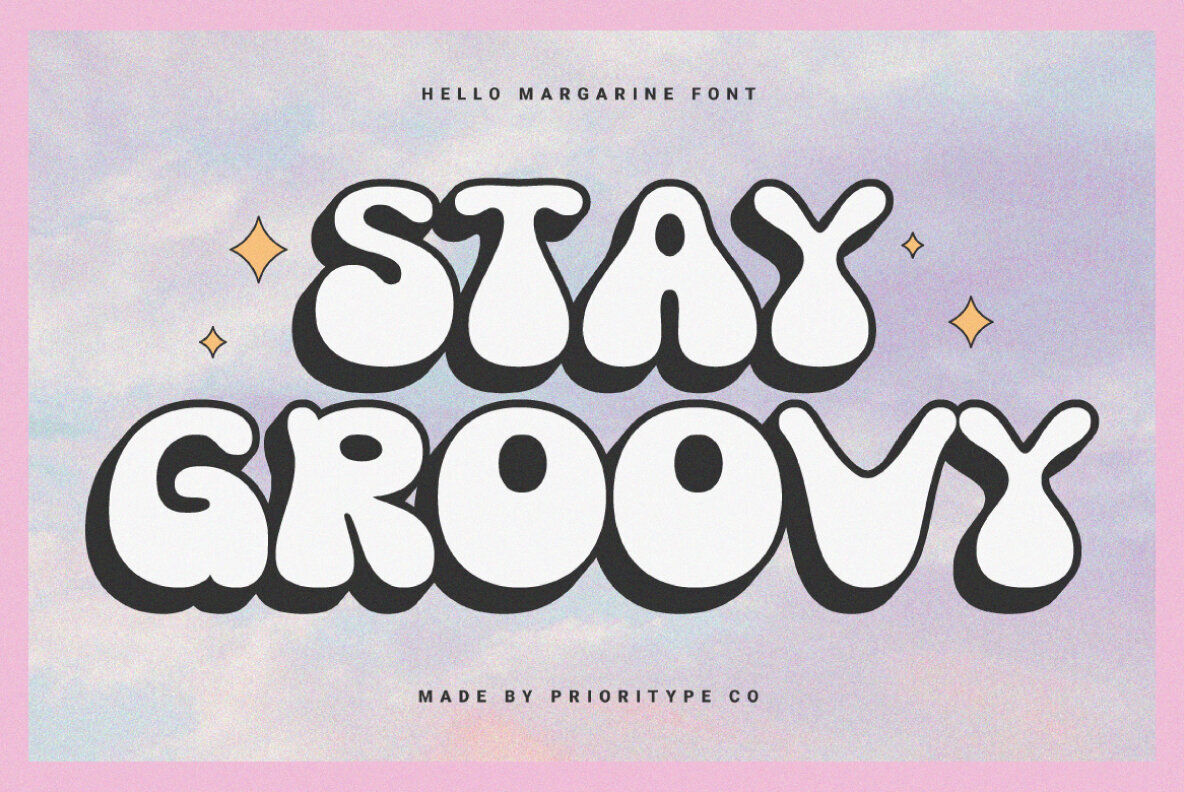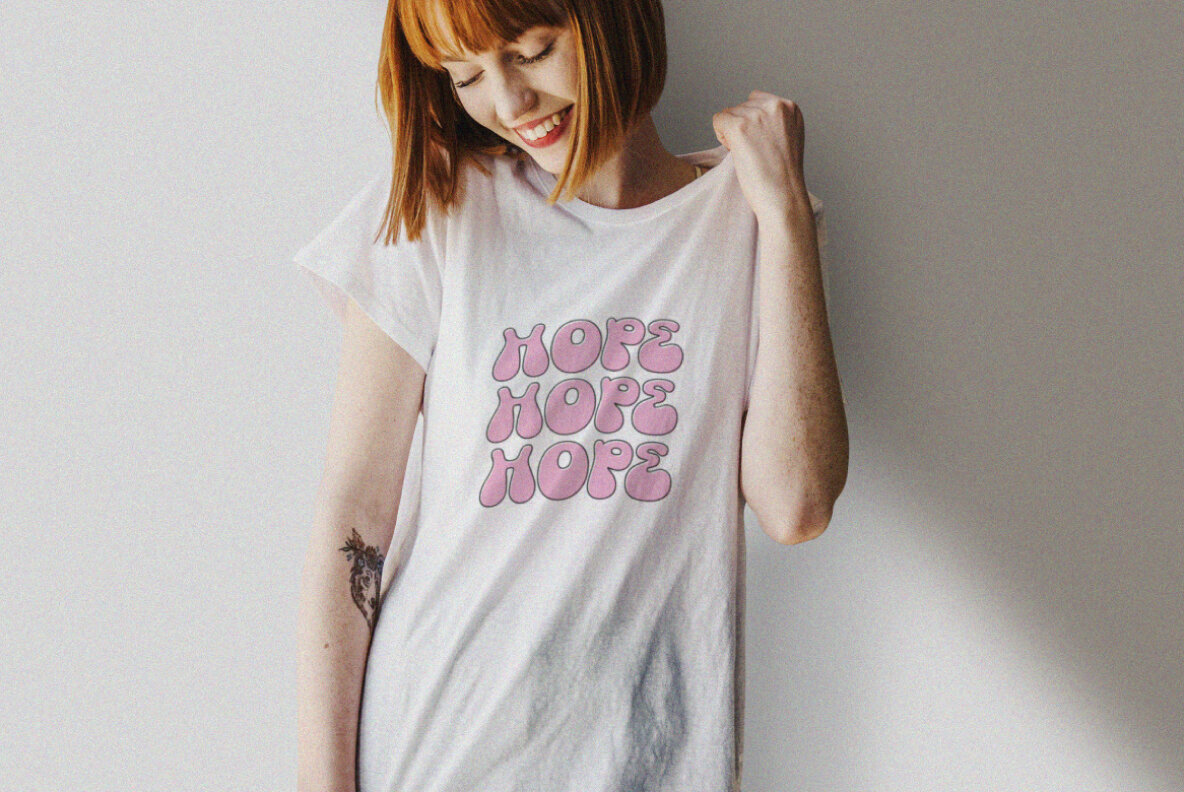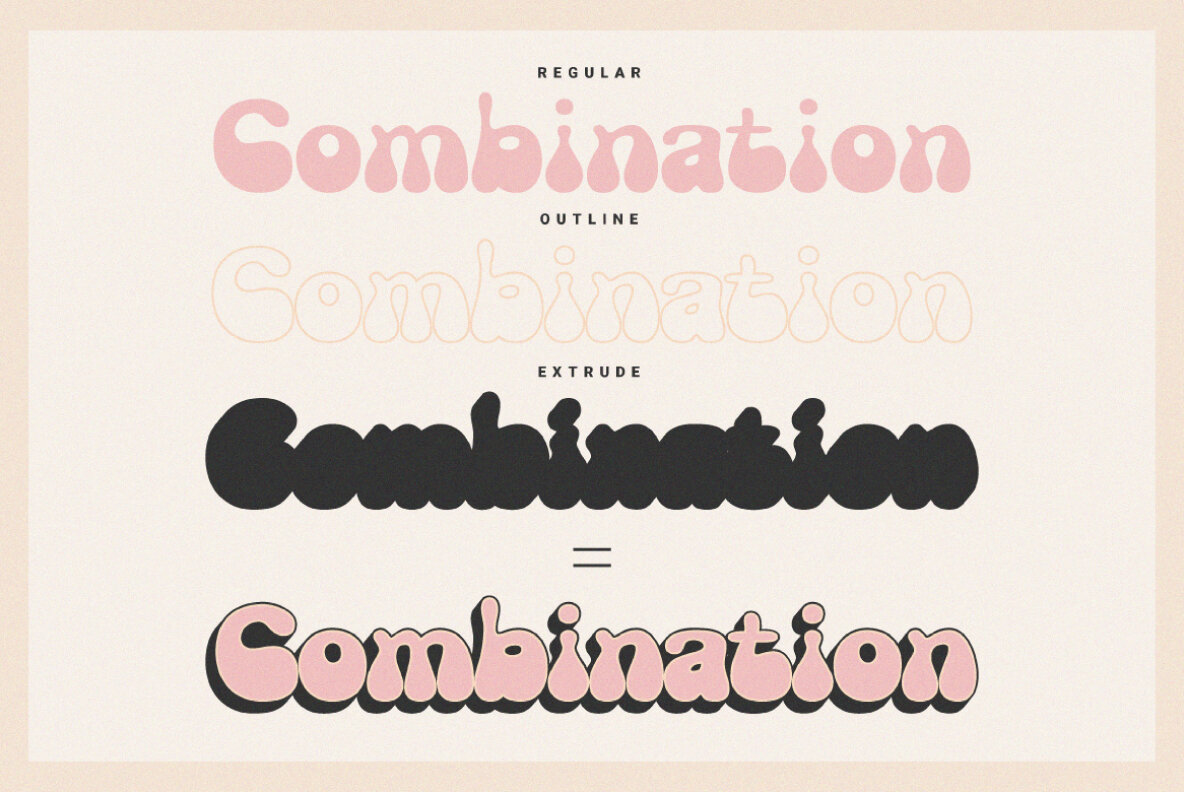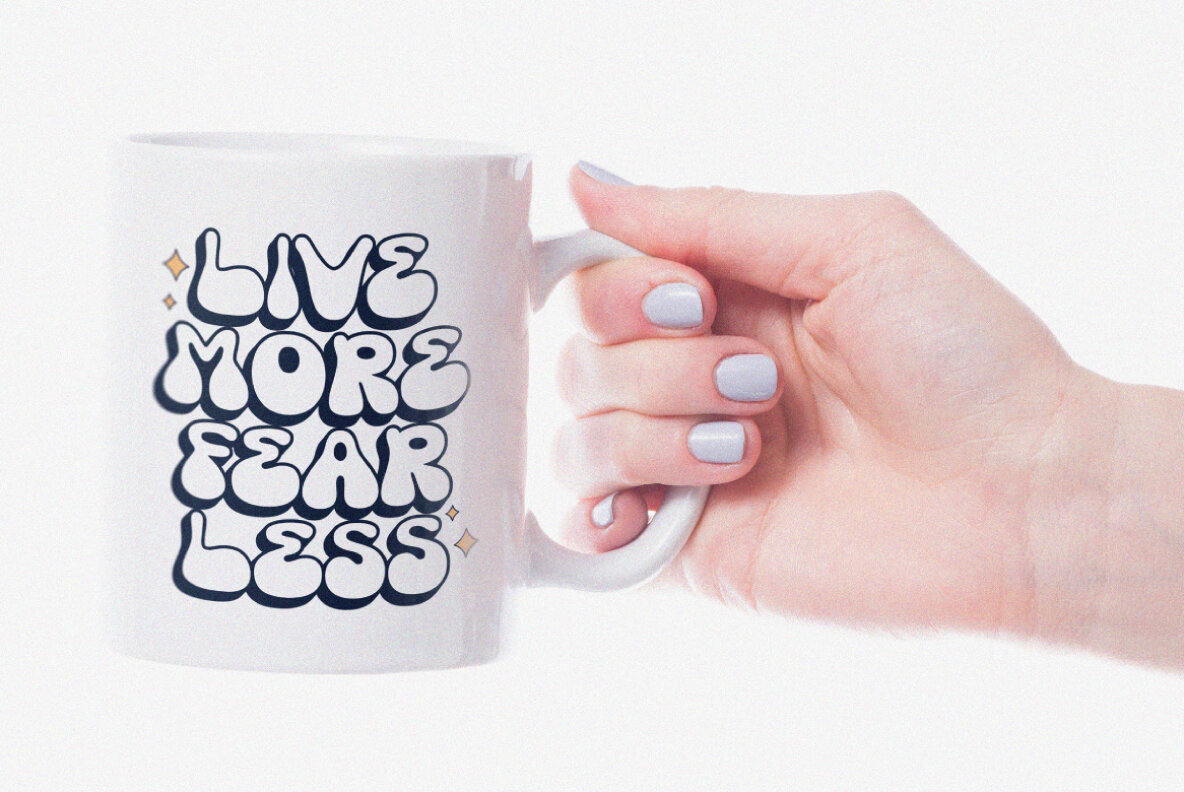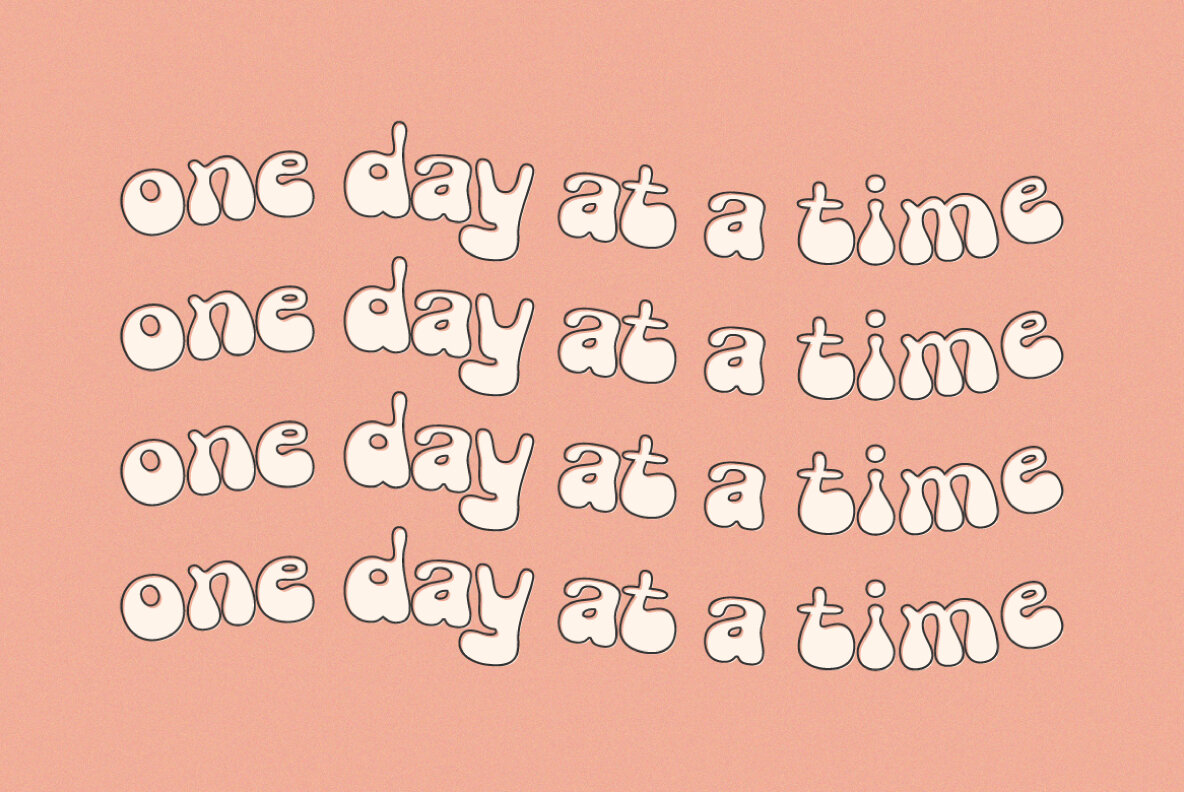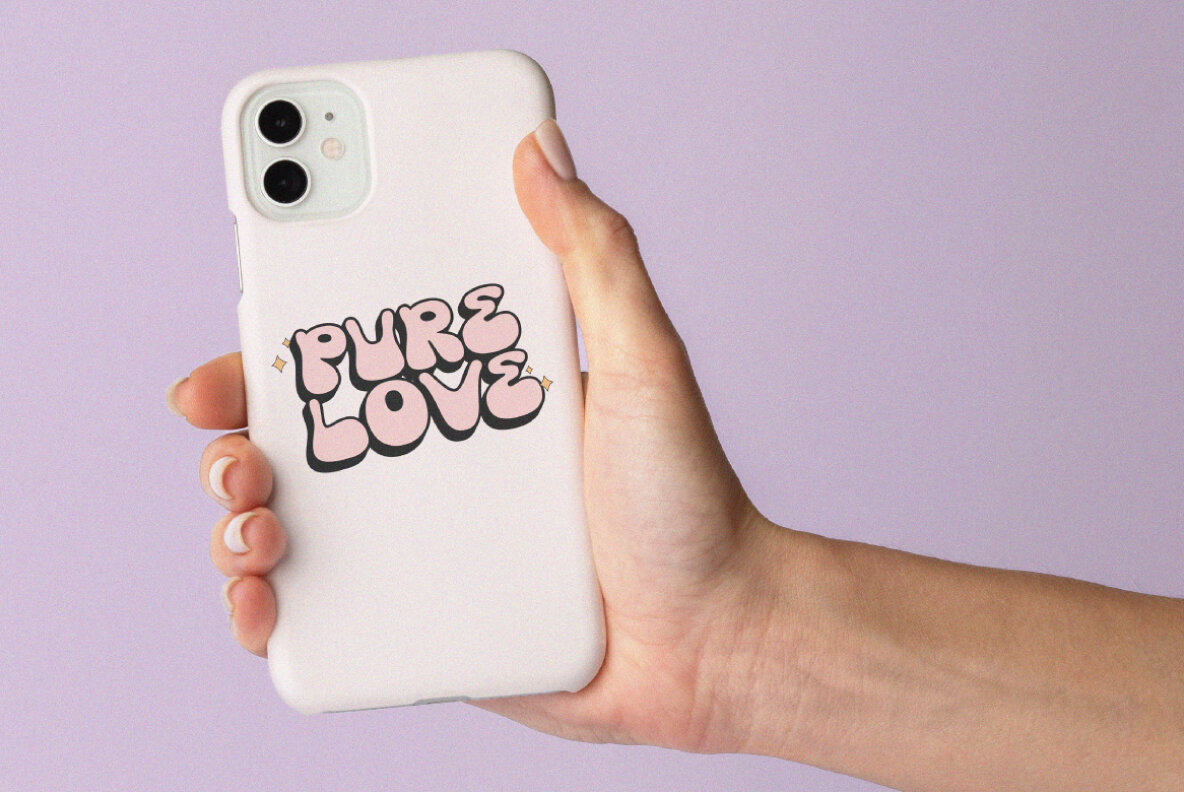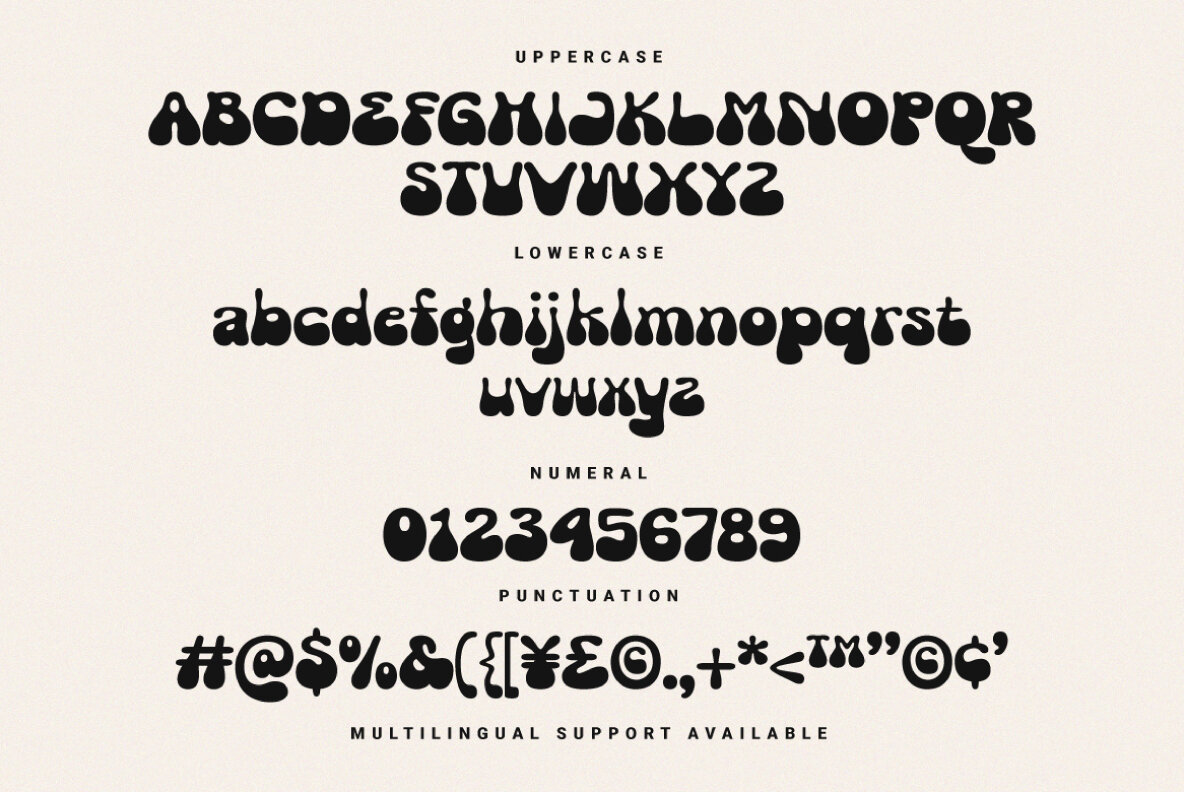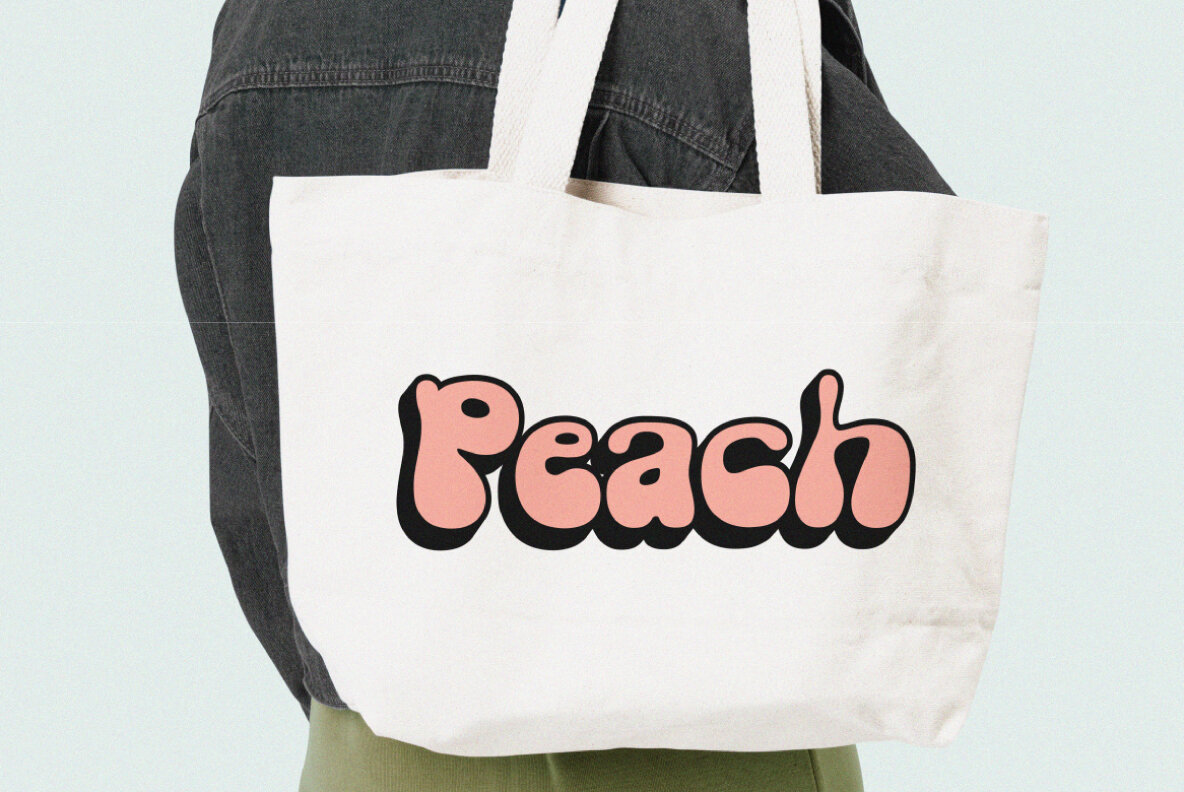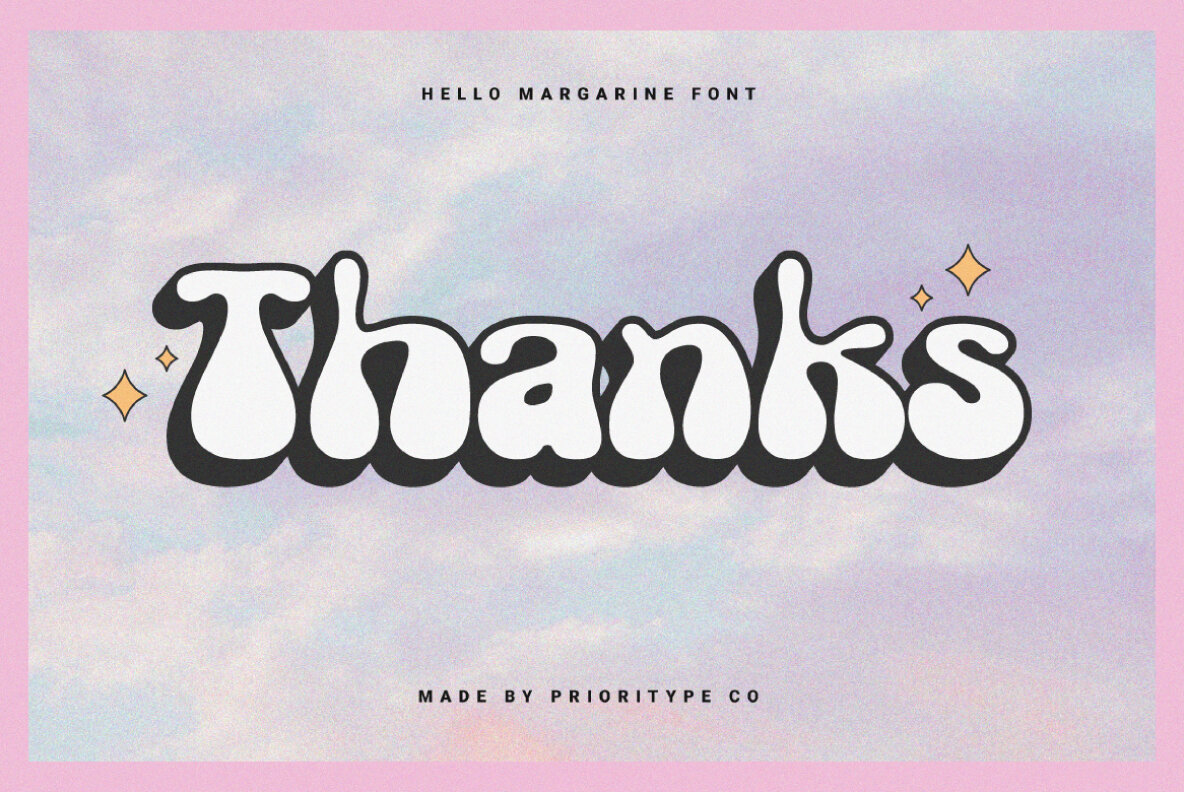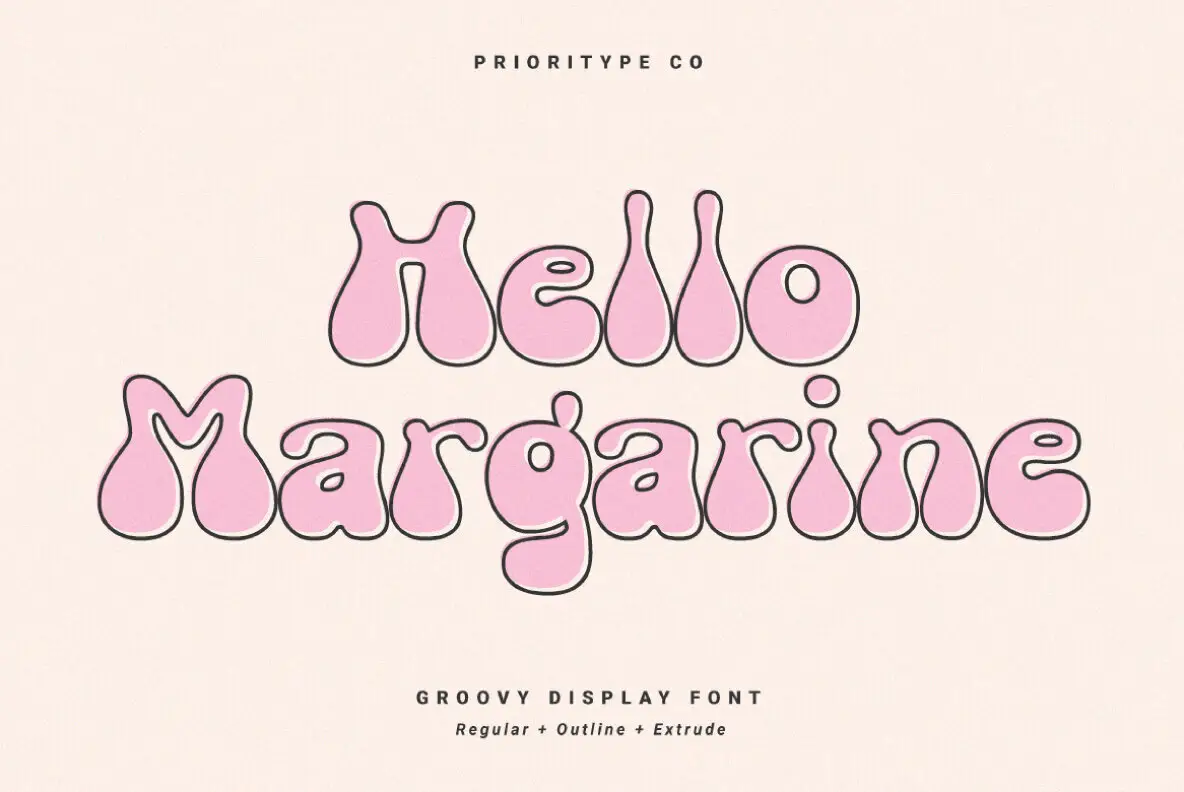
Hello Margarine Font
Hello Margarine is a groovy, hand-drawn typeface that brings a bold and upbeat vibe to your projects. This lively font comes in three versatile styles: Regular, Outline, and Extrude. Used separately or together, these styles provide both visual appeal and practical versatility in design applications.
This typeface offers a robust character set, including uppercase, lowercase, numerals, punctuation, and extensive multilingual support. The multilingual capabilities cover a wide range of languages such as Afrikaans, Danish, French, Italian, Portuguese, Spanish, Swahili, and many more. Designed to cater to diverse cultural contexts, Hello Margarine ensures that your message is delivered clearly and creatively across various languages and regions.